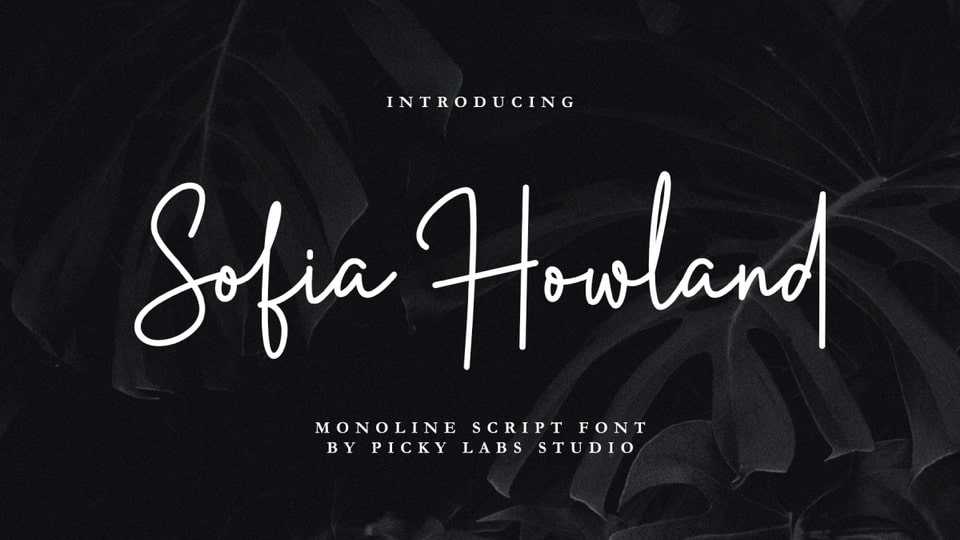
Download Sofia Howland font, a stylish and exquisite script typeface that brings a touch of luxury to any design. Its elegant flourishes and delicate curves exude sophistication and class.
Designer: Picky Labs